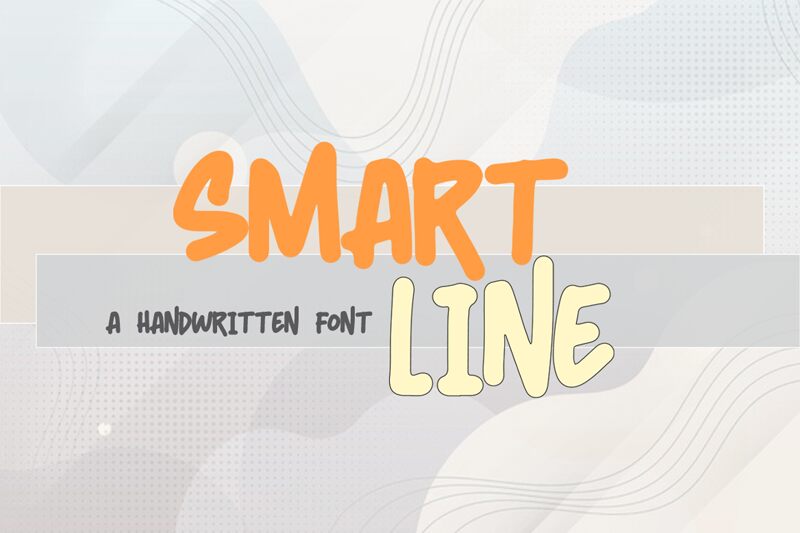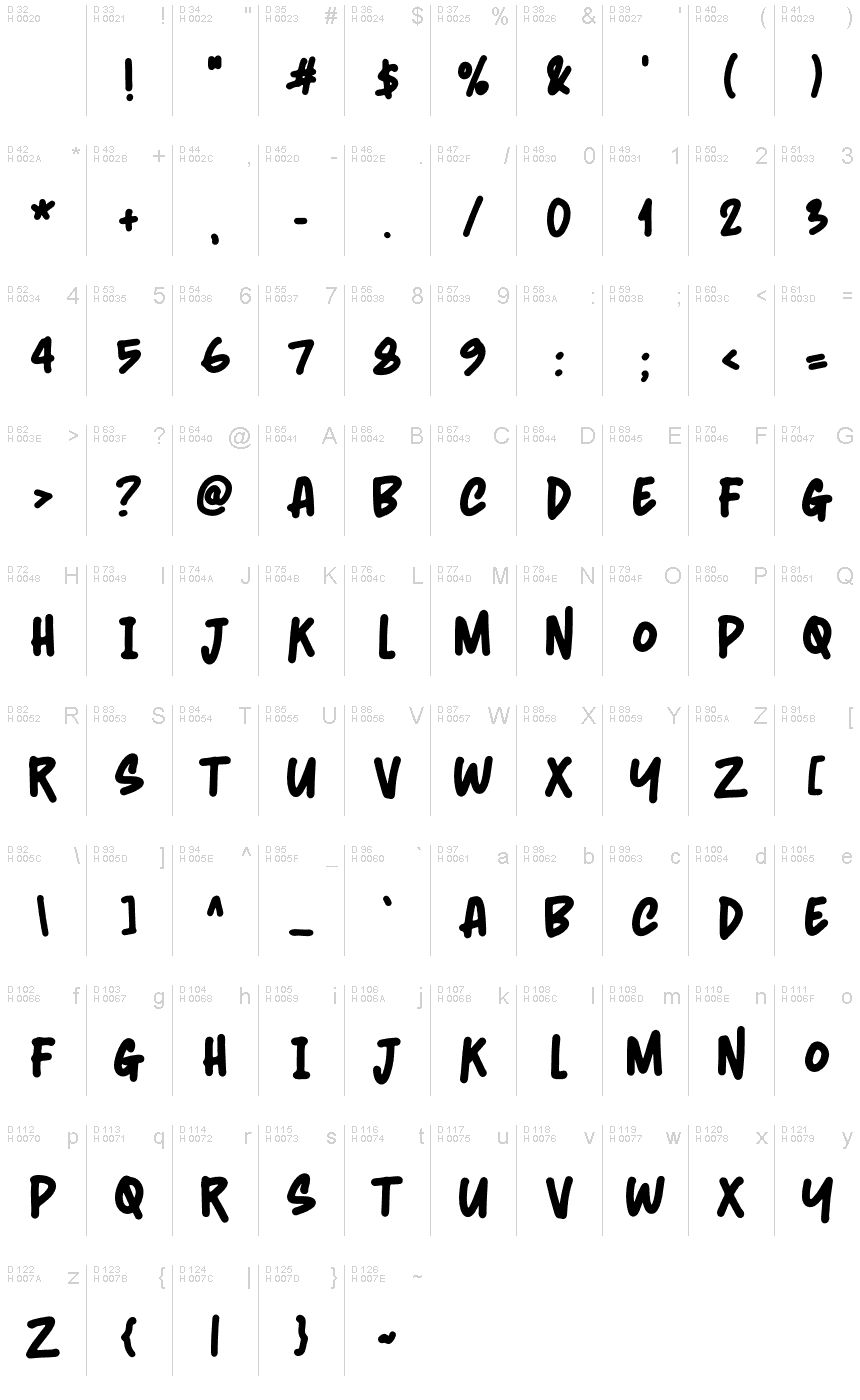
Smart Line
Smart Line, designed by Winarko, is a charming handwritten font with a semi-bold weight. Its playful strokes and flowing lines add a touch of elegance to any project. With its versatile nature, Smart Line is perfect for various creative ventures.
Use it for wedding invitations to bring a romantic flair, or apply it to children's book covers for a whimsical touch. This typeface also shines in branding projects, giving logos and packaging designs a unique and authentic feel.